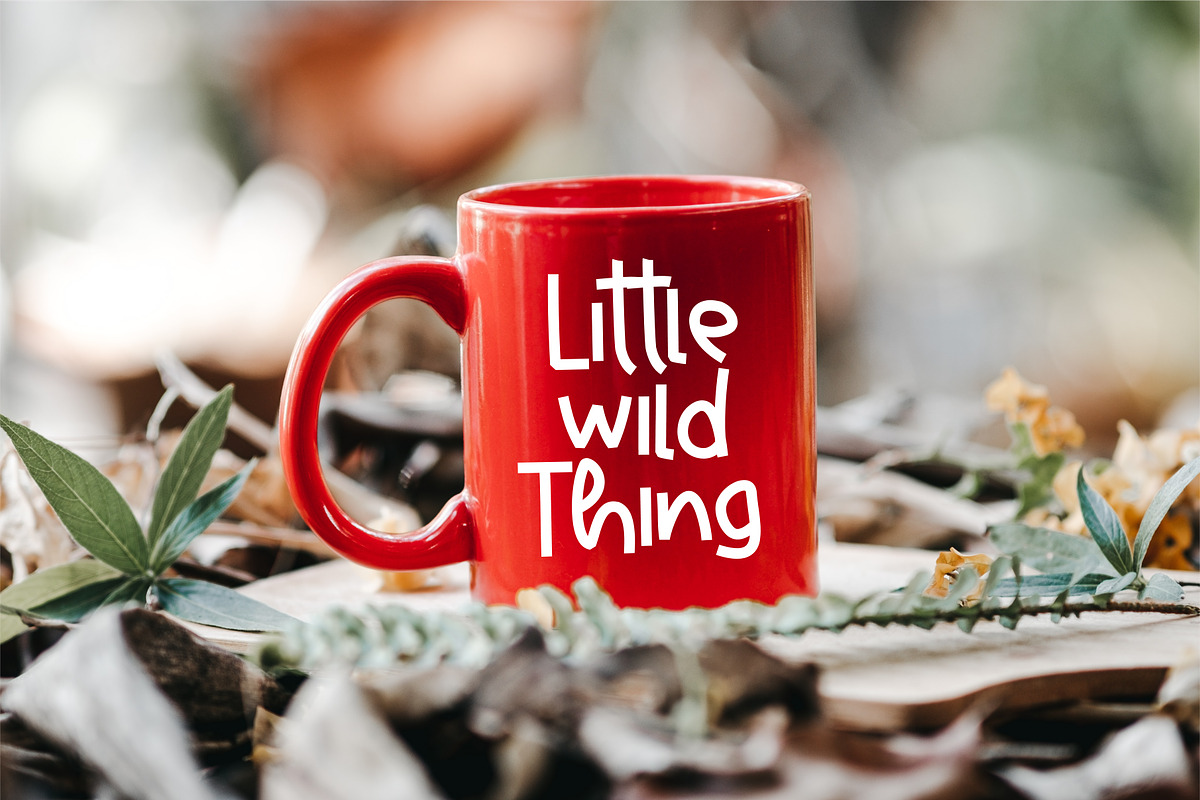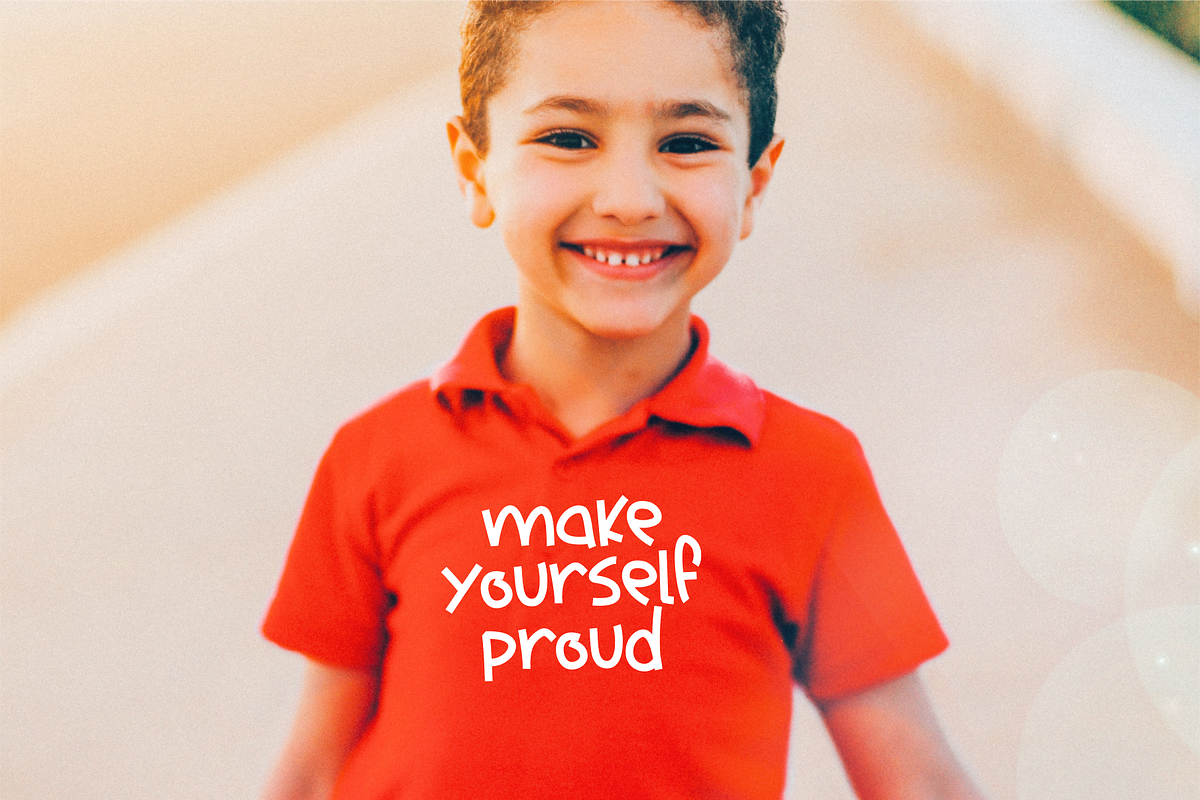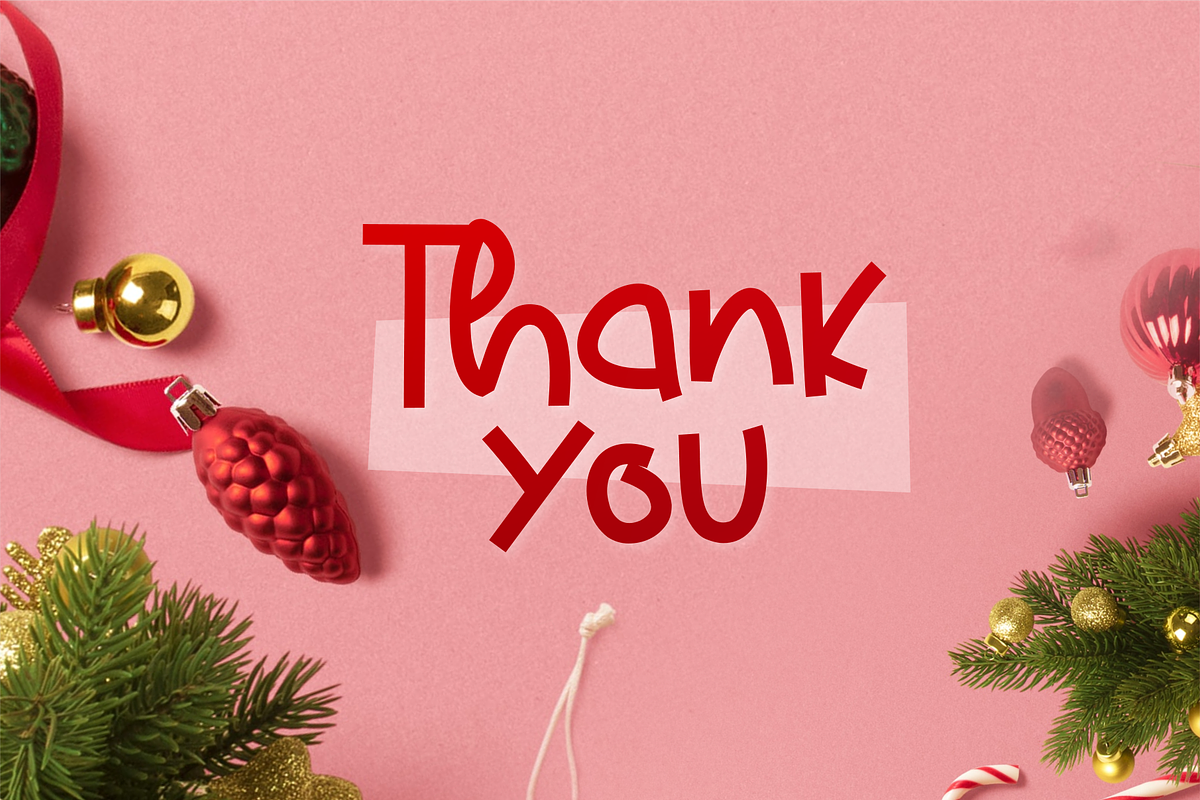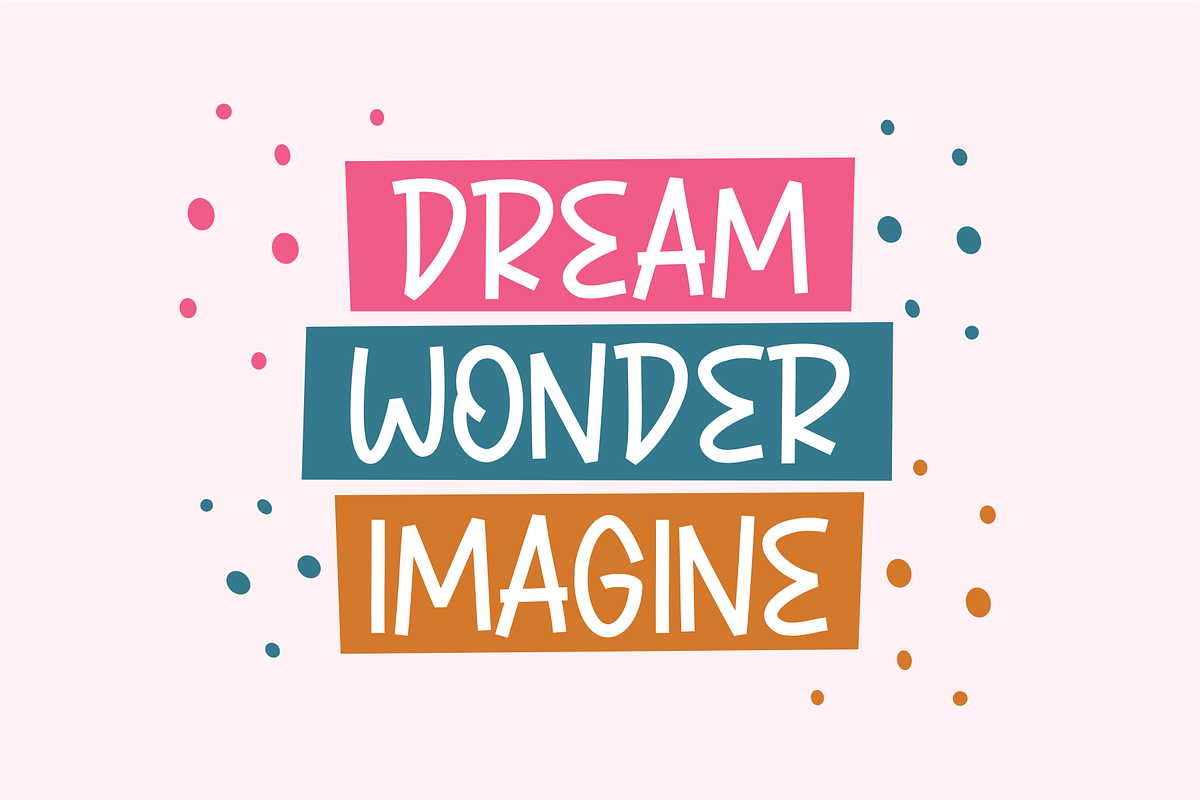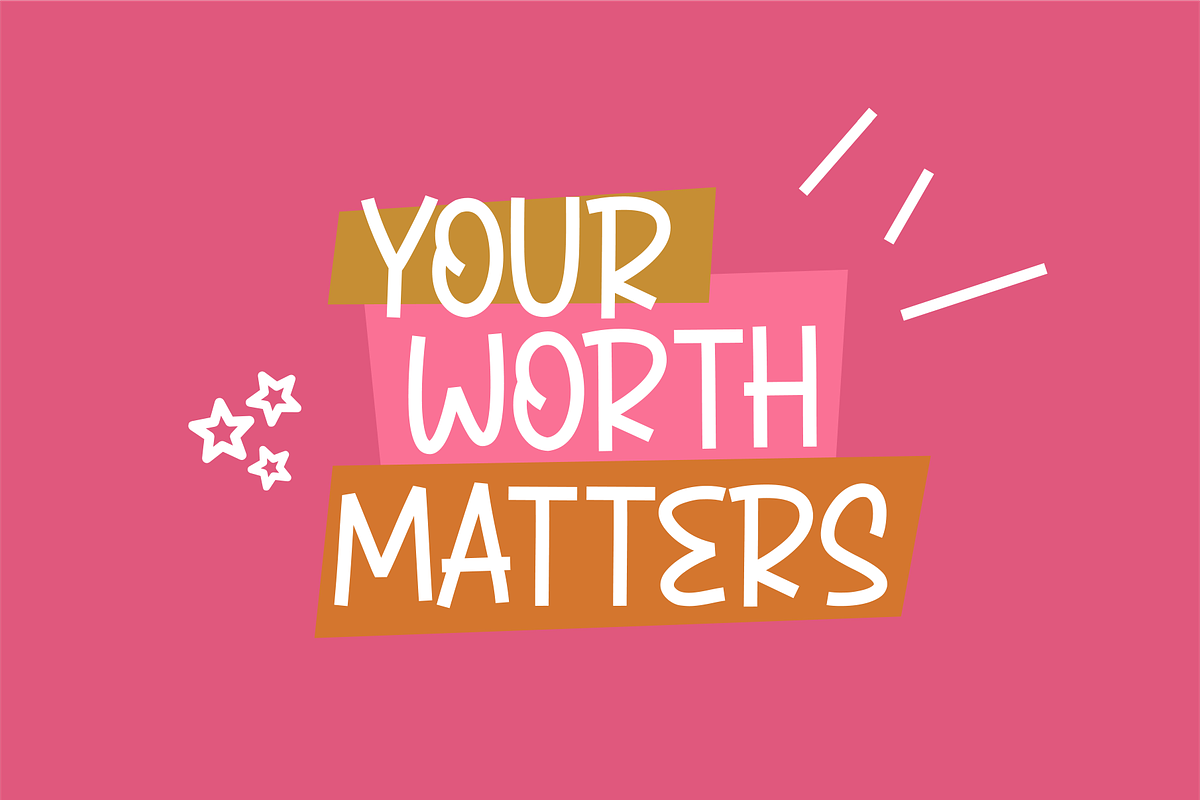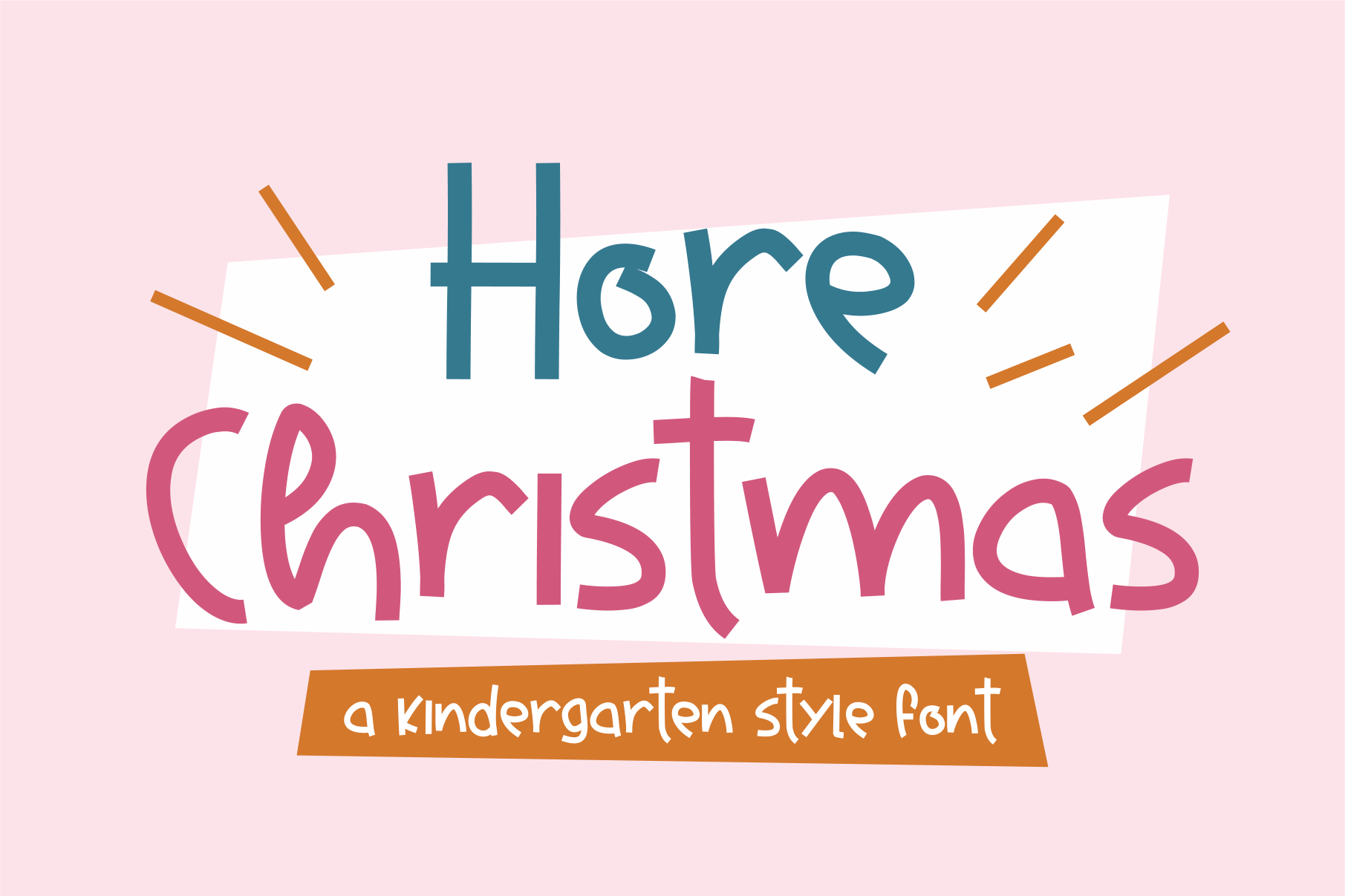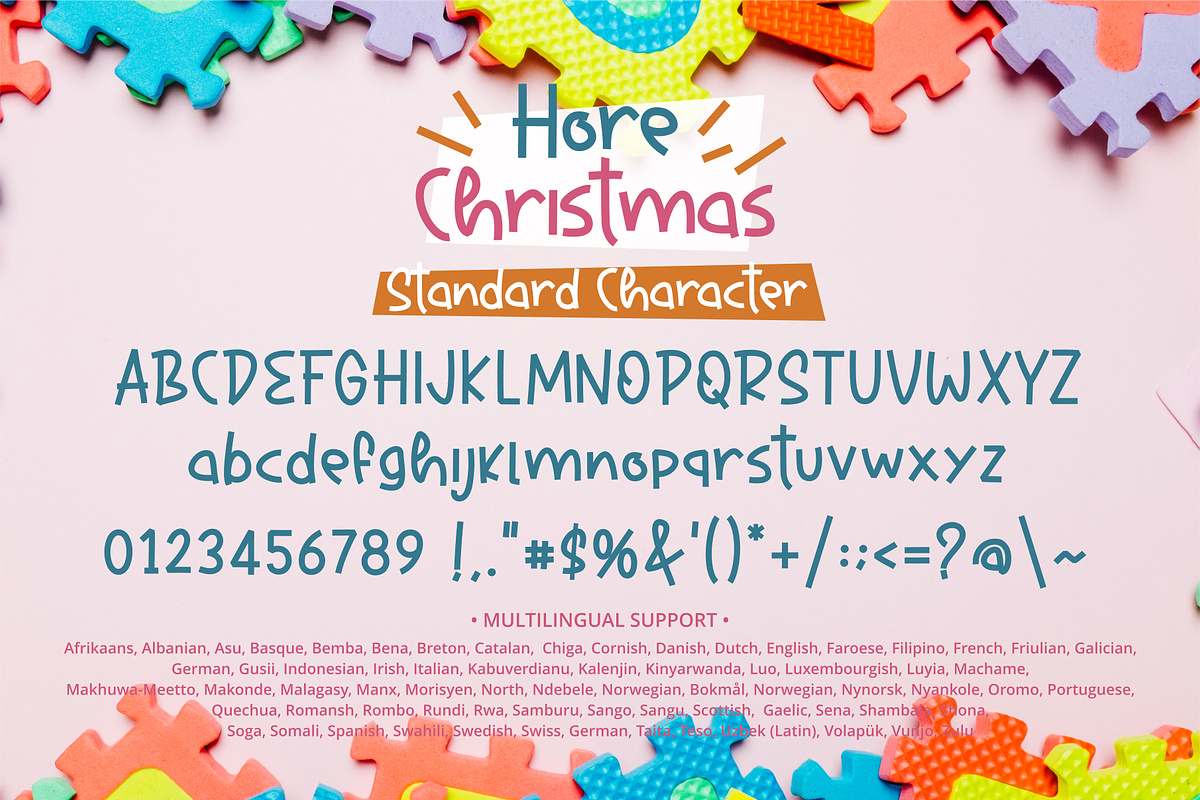
Hore Christmas Font
Hore Christmas is a playful and chic script font. It is suitable for kids designs, silly quotes and much more. Every letter has a unique and beautiful touch, which will make your design look childish and fun!